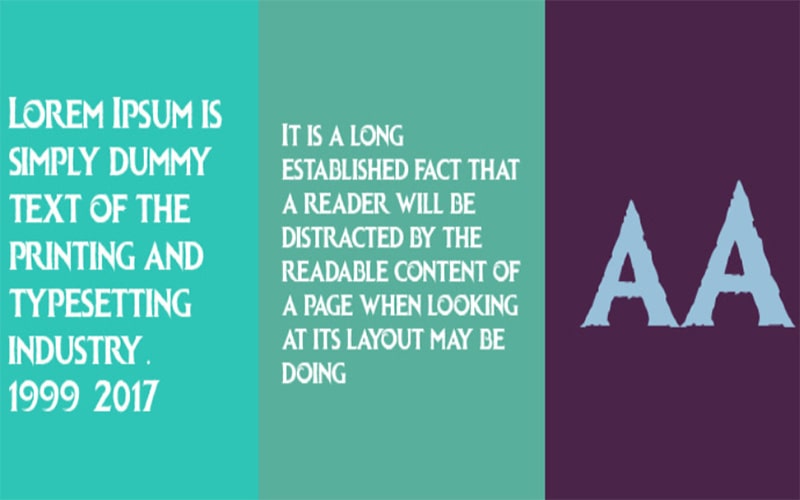
Ice Kingdom Font is a royalty-free bold and fancy serif typeface family. The Ice Kingdom Font was created by Kustren. This is a clean round, beautiful font with a simplicity that makes you scream.
This standard font contains only one unique style. This excellent font looks like something you can see in a Disney movie. The exaggerated ornaments on each letter give this dependent font a very magical feel.
You can openly use this fine-quality font for different purposes such as well suited to create a logo design, branding design, poster advertisements, social media posts, display titles, and more wherever you want.
The Ice Kingdom bold by Kustren is a font based on the Frozen movie logo. This beautiful font features thick strokes. It will look great on headlines. We are providing a file with a zip download free on anchor fonts.
Ice Kingdom Font
| Font Name: | Ice Kingdom Font |
| Style: | Fancy, Modern, Typeface |
| Font Designer: | Kustren |
It can be a better choice for professional work. It can be a unique look due to its cleanliness and softness. Because this typeface includes all the basic features of modern.
In modern times, every designer wants to create the best design according to market demand. Therefore, this stunning font has great potential to do this.
It’s a modern and clean font family, it looks perfect for paragraph headings. You can use it for the signature script, use it for a design project, a wedding design, and a product design.